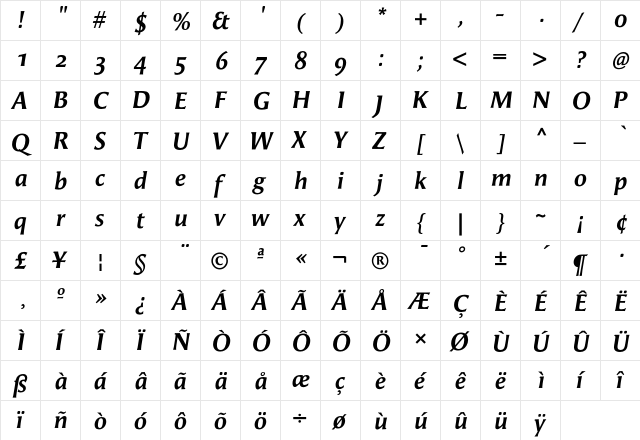
Angie BoldItalicOSF
Design Context for Angie Typeface
Angie offers clean, dependable letterforms without strong stylistic allegiance, making it a practical choice for designers who need flexibility. Its italic angle brings a sense of urgency and motion to the letterforms. Its bold stroke weight gives it real presence on the page.
Pro Tip: Use Angie for emphasis, pull quotes, and subheadings where its slanted energy can add rhythm to the layout.